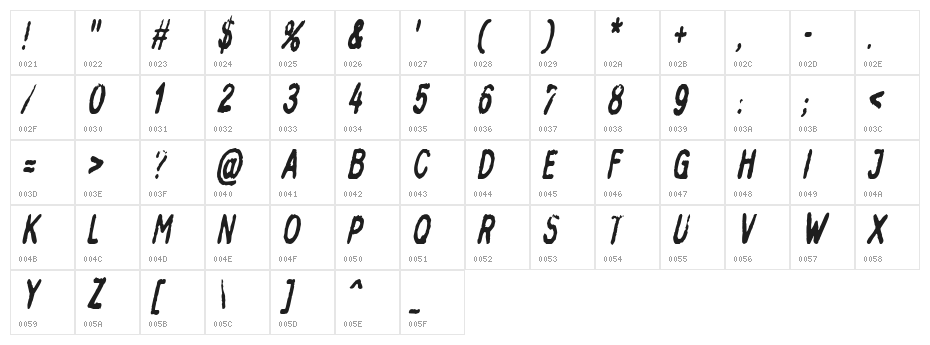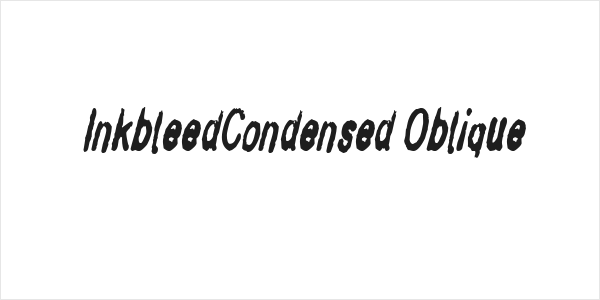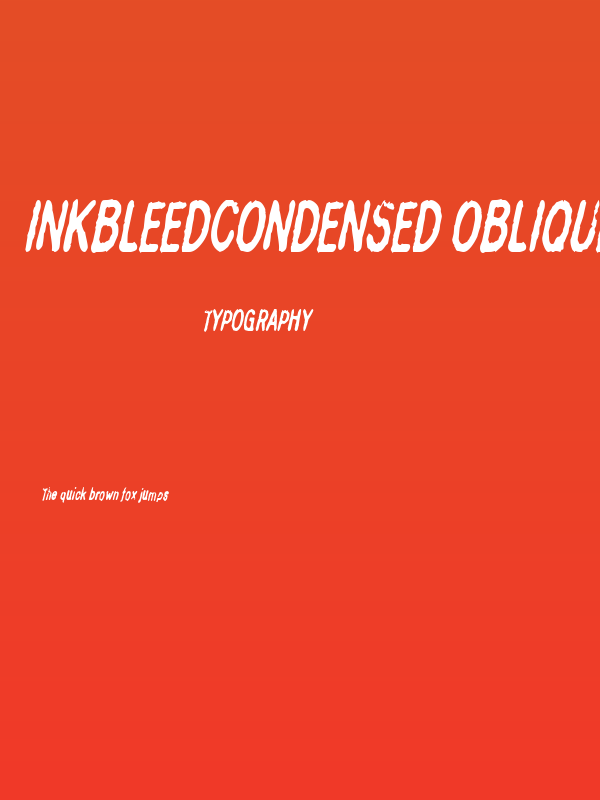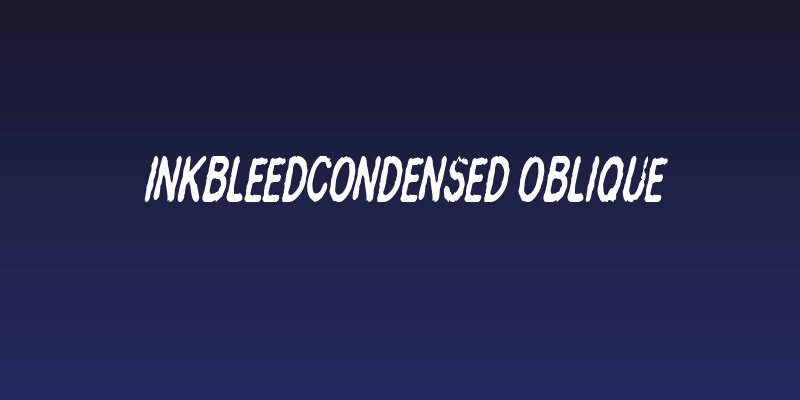
InkbleedCondensed Oblique Font
InkbleedCondensed Oblique Description
This font features a distinctive, hand-drawn appearance with an ink bleed effect, giving it a raw and organic feel. The characters are slightly slanted, adding a dynamic and informal touch. The strokes are uneven, with varying thickness that mimics the look of ink spreading on paper. This creates a sense of movement and energy, making it ideal for projects that require a bold and artistic statement. The condensed nature of the font allows for efficient use of space, while the oblique style enhances its expressive quality. Overall, it exudes a creative and edgy vibe, perfect for capturing attention.
| Proposed Projects | Ideal for artistic posters, album covers, graffiti art, and creative branding. |